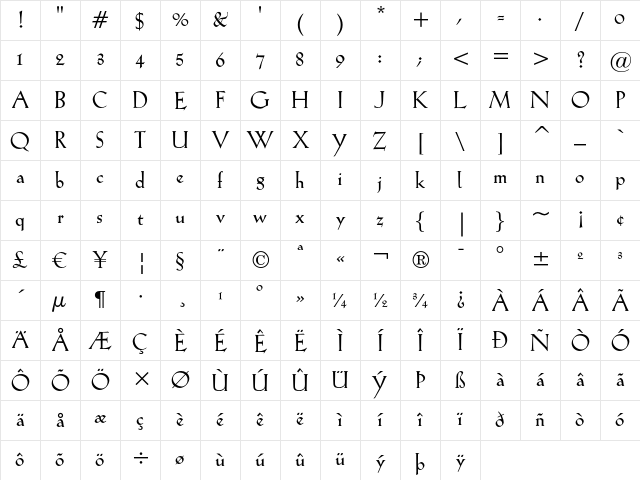
Kuenstler 165 Bold Free Font
Kuenstler 165 Bold
Design Context for Kuenstler 165
Kuenstler 165 is a composed and adaptable typeface that performs quietly and consistently across a wide range of design contexts. Its bold stroke weight gives it real presence on the page.
Pro Tip: Use Kuenstler 165 in both headline and body roles to test its range before committing to a single application.